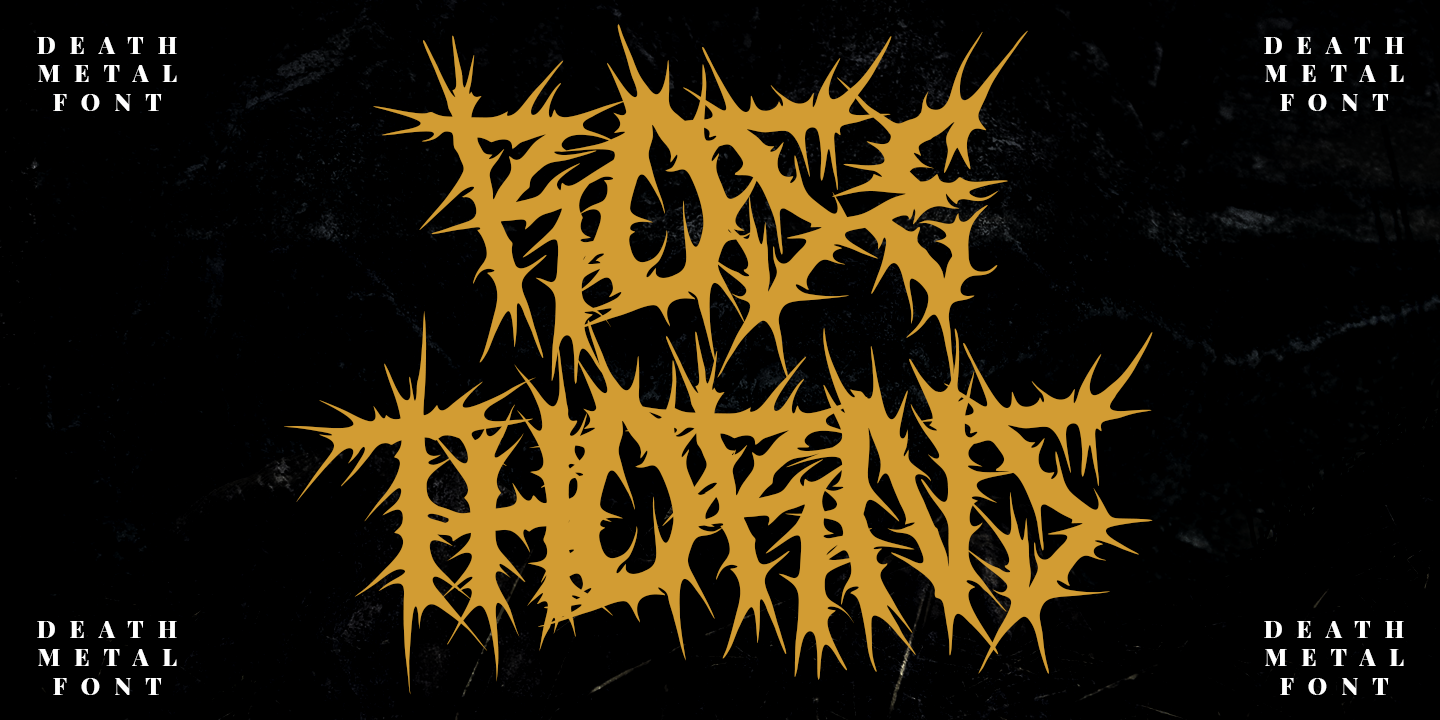
Rose Thorns Font is perfect for gothic romance novels, dark beauty branding, thorny floral designs, dramatic wedding invitations, mysterious perfume packaging, edgy fashion labels, haunting poetry books, and intense designs that require passionate gothic elegance with dangerous beauty.
This font is exciting because it captures the duality of beauty and danger through its elegant yet sharp letterforms that embody the romantic contradiction of roses and their protective thorns. The dramatic character design reflects the intensity of passionate romance and gothic aesthetics, making it perfect for brands seeking to convey mysterious allure and dramatic sophistication.
Rose Thorns Font belongs to the gothic romantic font family, featuring thorny styling and dark beauty elements that enhance its authenticity for dramatic romance and gothic-focused design applications.
Whether you're creating gothic romance branding or darkly beautiful artistic graphics, Rose Thorns Font Free Download delivers captivating visual drama and romantic intensity. This typeface perfectly balances elegant beauty with dangerous edge, making it essential for designers working on projects that explore the darker side of romance and beauty. The font's dramatic presence works magnificently in book covers, fashion communications, and romantic materials, providing excellent readability while maintaining its thorny character that transforms any design with gothic passion and creates unforgettable dramatic experiences across all media platforms and romantic gothic communications.